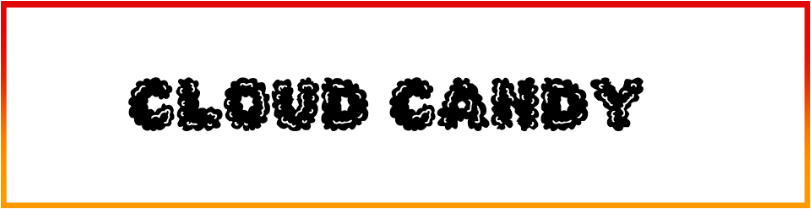
Cloud Candy
Cloud Candy is a fancy font made by Woodcutter Manero. Bold and full of character, it's built to stand out rather than blend in. You can download it for free and test it with your own words in the preview above.
- Designer: Woodcutter Manero
What You Can Type With Cloud Candy
You get every letter from A to Z in both cases and all the numbers from 0 to 9, which means Cloud Candy can handle full sentences, dates and prices. Everyday marks like &, !, ? and @ are there too. Thanks to its accented letters, it also works for Spanish, French, German, Portuguese and Italian, not just English.
Where Cloud Candy Works Best
Designers usually reach for fonts like Cloud Candy when they're making posters, logos and eye-catching headlines. The file has no kerning data, so in logos and big titles check pairs like AV, To and Wa and tighten the spacing by hand. Use it for one standout word or headline and let simpler fonts handle the rest.
Does Cloud Candy support accented letters?
Yes. Cloud Candy includes the accented letters needed for Spanish, French, German, Portuguese and Italian, so it works for more than just English.